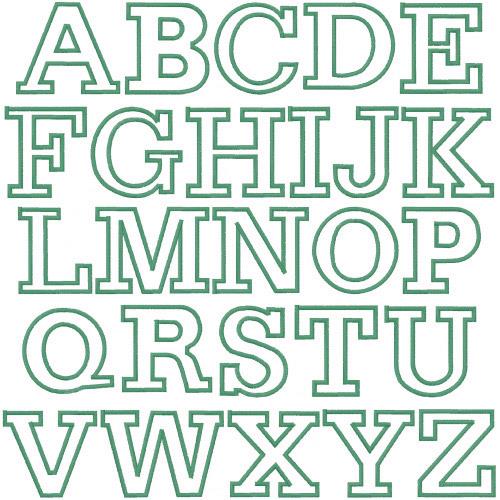
Embroidery Patterns is happy to present outline Block machine embroidery font which has Bold outline block machine embroidery font suitable for personalizing pillows and home decor projects. Available in PES, DST, ART, and 9 additional formats. included. If you would like to view more embroidery fonts and alphabets please search our embroidery fonts page.